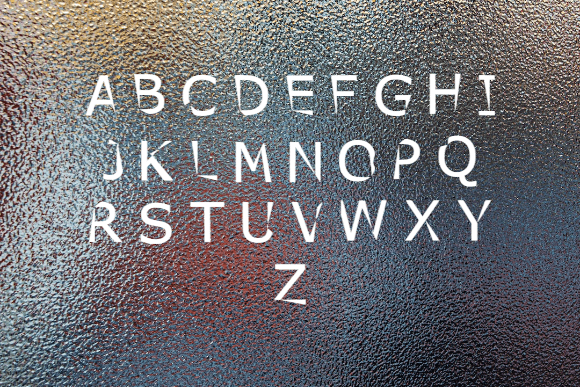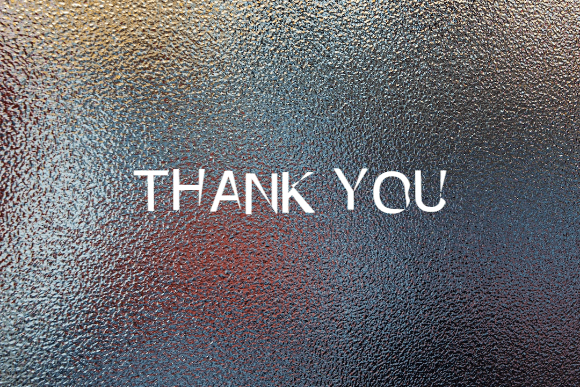
Introduction to Repair Font
Have you ever stared at a blank canvas, trying to bring your creative vision to life, only to find yourself stuck on the perfect font? That’s where the Repair Font comes in – a clean and modern display font that’s about to become your new design BFF.
As a designer, you know the importance of a high-quality font that complements your project without overpowering it. That’s why we’re excited to introduce you to the Repair Font, a versatile design resource that’s perfect for any creative project. With its smooth curves and sharp edges, this font is not only visually appealing but also easy on the eyes.
Whether you’re working on a project with a transparent background or need a font that can stand out on its own, the Repair Font is a valuable addition to your design arsenal. And the best part? It’s available for free download, making it an essential resource for any designer looking to elevate their work.
Key Features of Repair Font
- High-Quality Design: Repair Font is a professional design resource, offering a high-quality font that enhances any creative project.
- Unique Characteristics: Repair Font features a unique blend of modern and vintage elements, making it an excellent choice for designers looking to add a touch of elegance to their creative project.
Honest Review: Repair Font
As a designer, I’m always on the lookout for high-quality design resources to elevate my creative projects. Recently, I had the opportunity to try out the Repair Font, and I must say it’s been a game-changer for me.
What works well is the font’s versatility. It comes in various styles and weights, making it easy to find the perfect fit for any design project. The transparent background is also a great feature, allowing me to easily layer the font over different backgrounds. I’ve used it for both web design and print materials, and it looks great in both formats.
- ✨ High-quality design with a wide range of styles and weights
- ✨ Transparent background for easy layering
One limitation I’ve noticed is that the font can be a bit heavy-handed in certain applications. For example, when used in small text, it can be difficult to read. However, this is a minor issue and can be easily mitigated by using the font in larger sizes or adjusting the font weight.
Overall, I’m really impressed with the Repair Font. It’s a valuable addition to my design arsenal, and I’ve already used it in several projects. If you’re a designer looking for a reliable and high-quality font, I highly recommend giving it a try.
Tips for Getting the Most Out of Repair Font
For the best results, use Repair Font on high-quality images with transparent backgrounds. This will ensure that your design project looks professional and polished. You can also use Repair Font to create custom fonts for your creative project.
Repair Font is a valuable design resource that can be used in a variety of situations. Some common use cases include:
- Fixing damaged or corrupted fonts
- Creating custom fonts for branding or marketing materials
- Enhancing the quality of fonts in digital designs